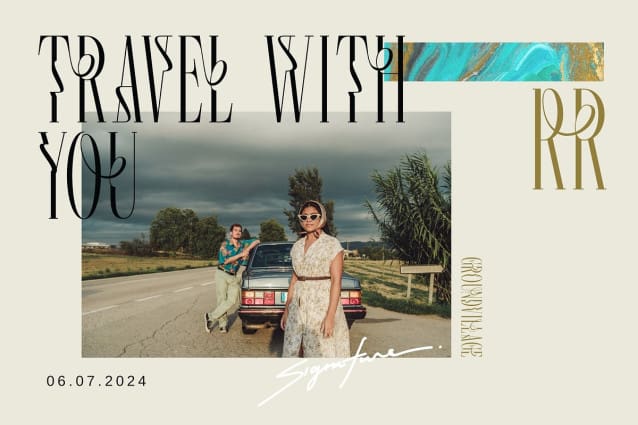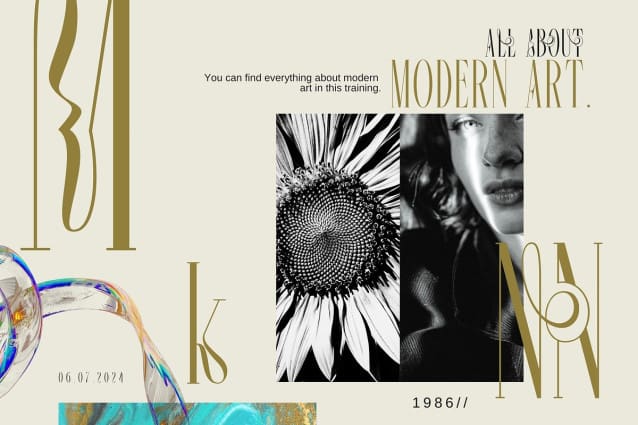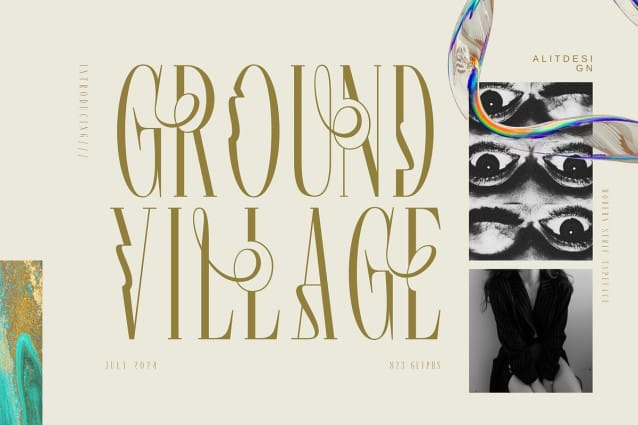
Ground Village Font
Ground Village Font, a modern sans serif font that effortlessly marries contemporary design with timeless sophistication. This typeface features a slightly taller body, giving your text an elongated, sleek appearance that stands out with poise and clarity.